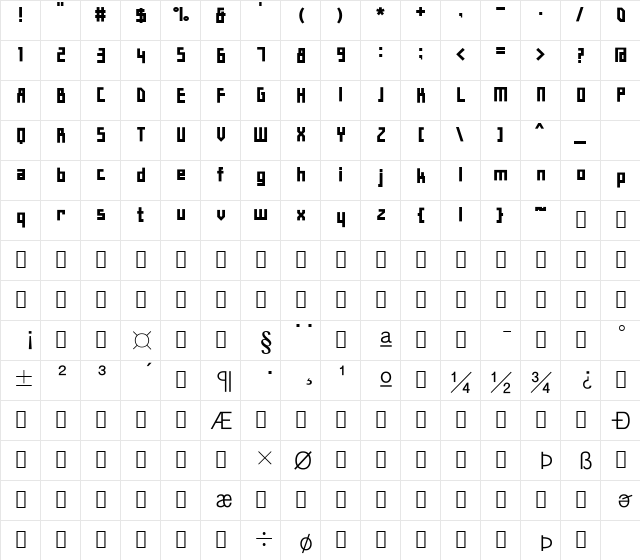
HYLongSamul-Bold Regular
Design Context for HYLongSamul-Bold Typeface
HYLongSamul-Bold takes a measured approach to typography — its balanced proportions and neutral character make it a reliable workhorse for both digital and print work. The heavy weight commands attention and anchors typographic hierarchies.